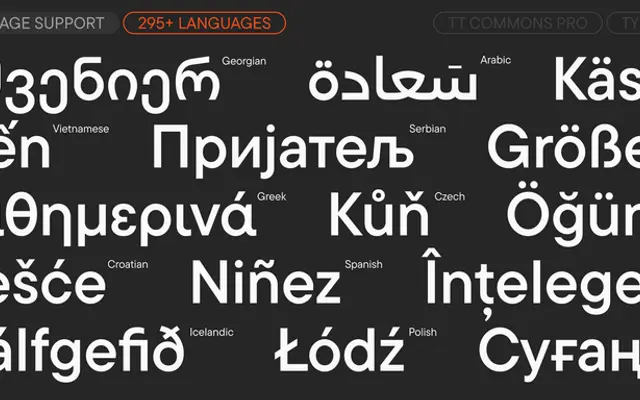
TT Commons™ Pro
TypeType · 2017
A large geometric sans serif from TypeType, grown over seven years from an internal tool into a 104-style family covering Latin, Cyrillic and Arabic scripts.
Originally drawn in 2017 to meet TypeType's own production needs, TT Commons Pro has expanded steadily into a family of five subfamilies — standard, compact, condensed, expanded and mono — with 102 static styles and two variable fonts. Extensive OpenType features include small caps, old-style figures, stylistic alternates for single-storey 'a', alternative 'l' and 'y', plus localisations for Bashkir, Chuvash, Serbian and other scripts. It has seen use in brand identities ranging from Domino's Pizza and Uniqlo to real estate and solar energy companies.
Explicitly described as a geometric sans serif by the foundry. The forms are clean and circular with optional stylistic alternates including single-storey 'a' and bowl-shaped 'y', consistent with geometric sans conventions.